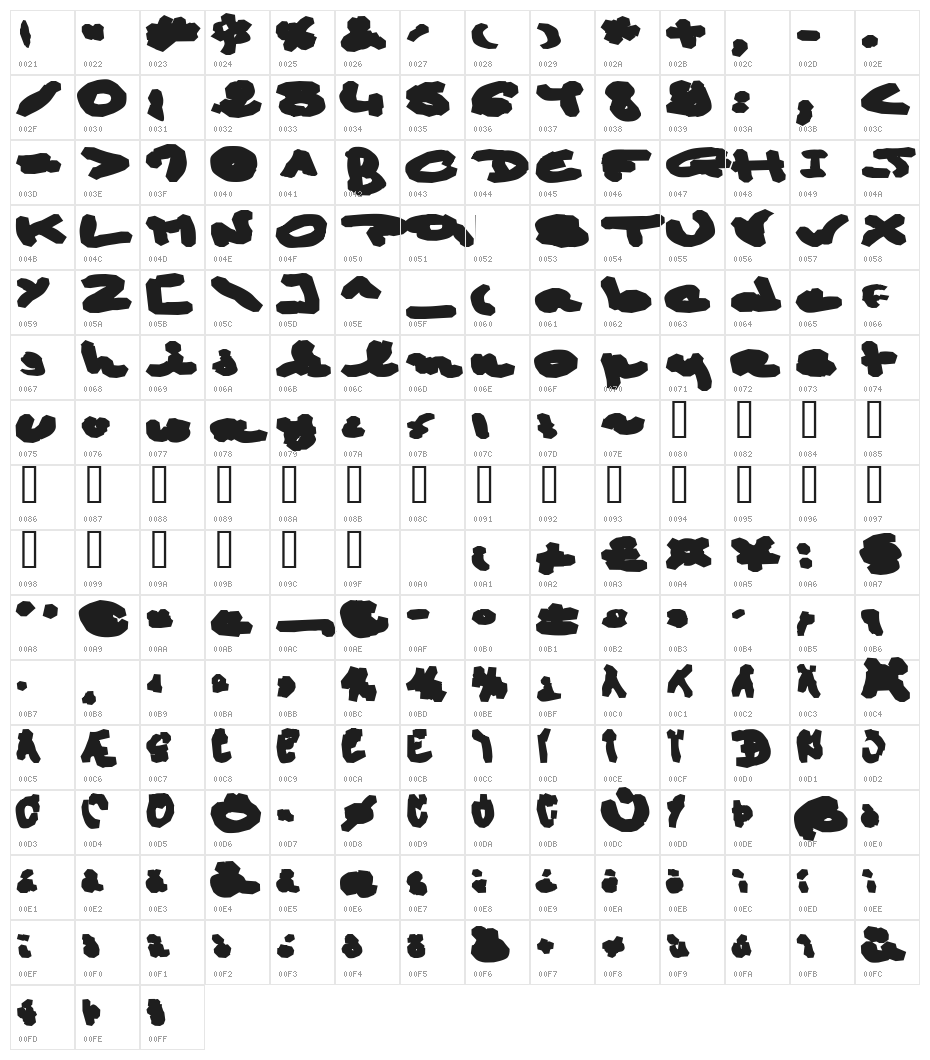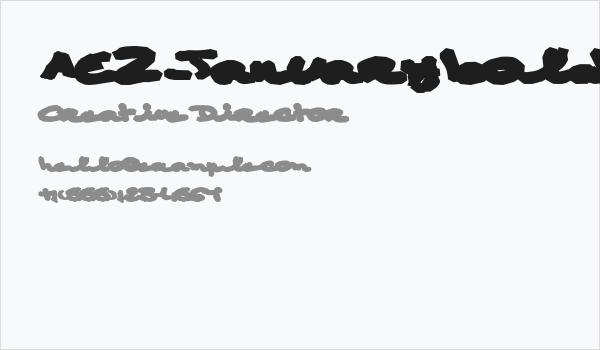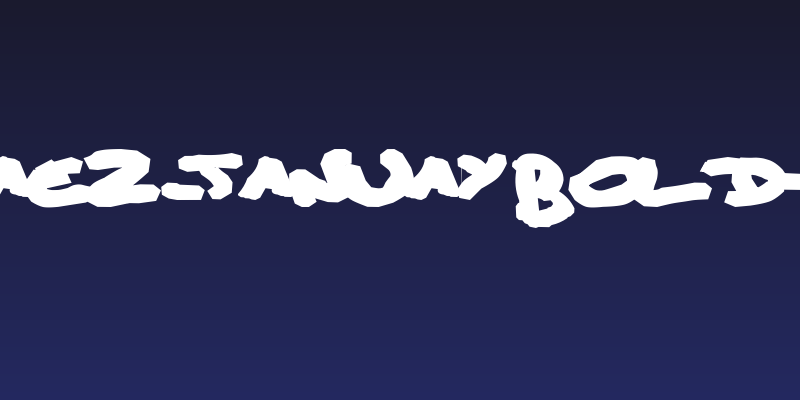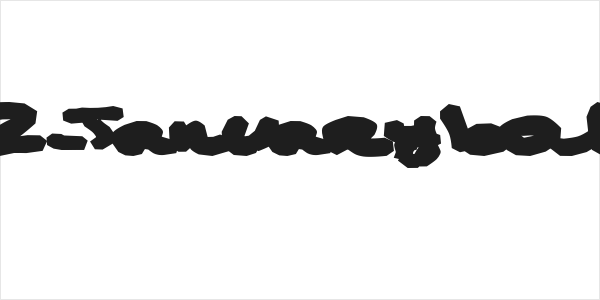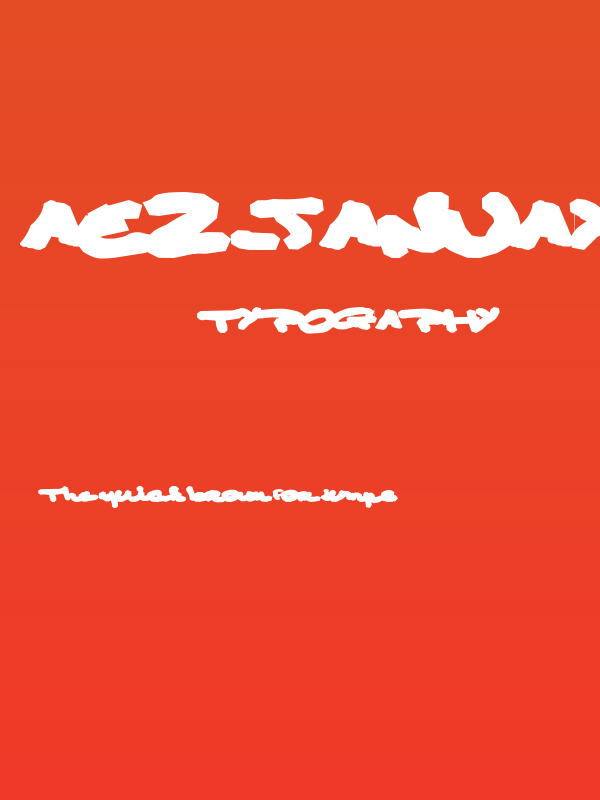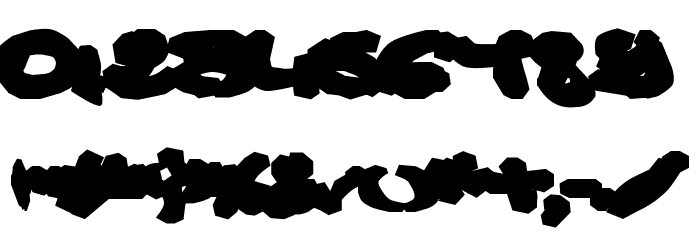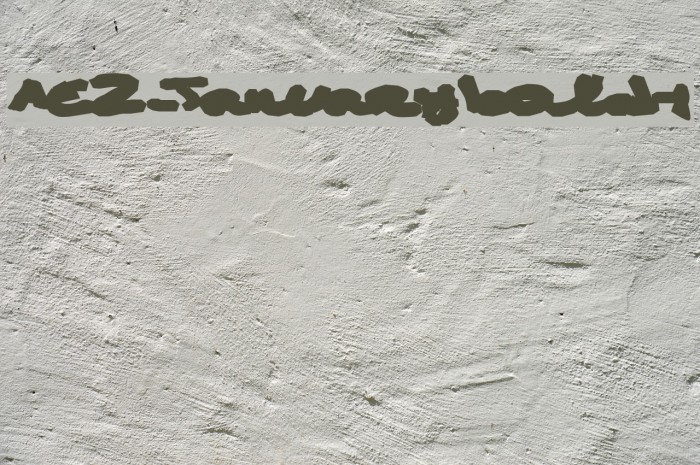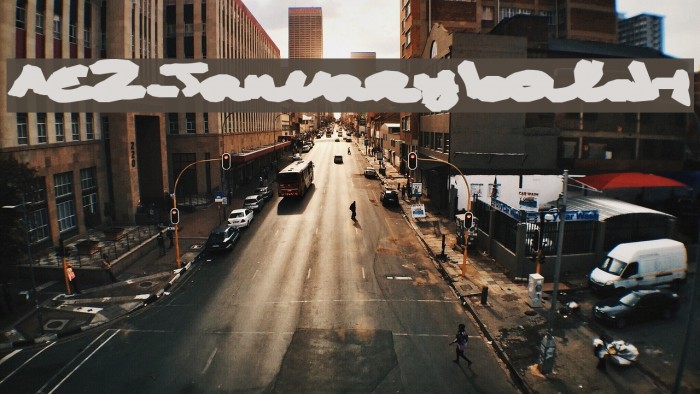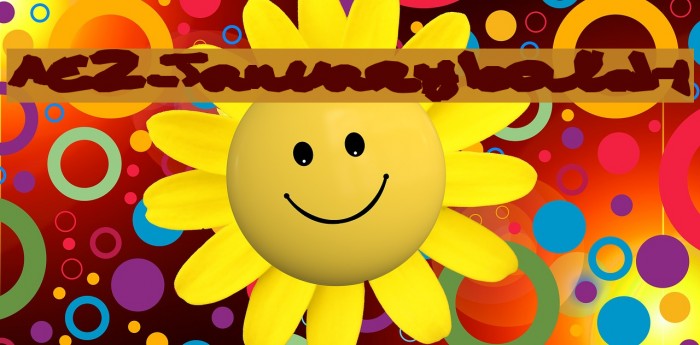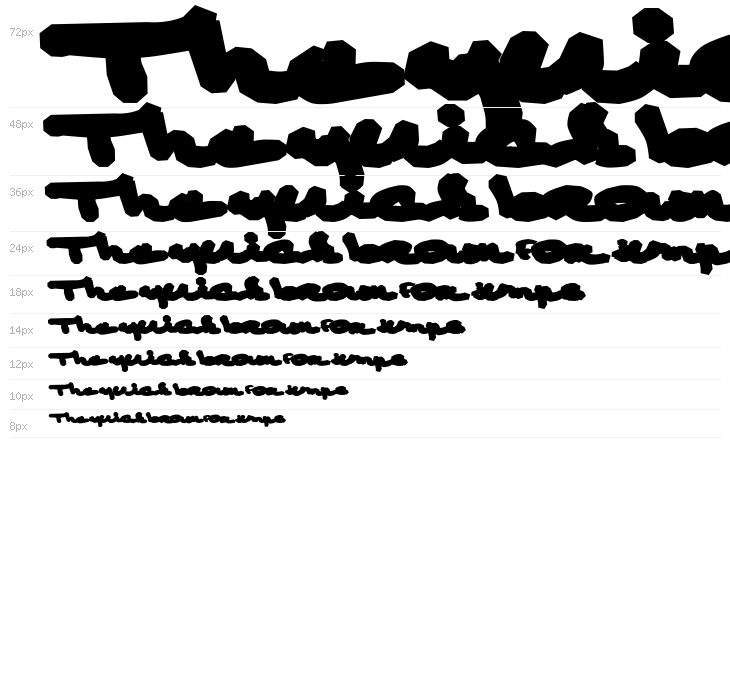
AEZ January bold-1 Font
This font exhibits a bold and expressive style, characterized by its thick, brush-like strokes that convey a sense of dynamism and energy. The letters are interconnected, creating a flowing and continuous script that resembles handwriting. The uppercase and lowercase letters maintain a consistent style, with rounded edges and a slightly irregular baseline that adds to its casual and artistic appearance. The numbers and special characters follow the same design principles, ensuring uniformity across all glyphs. This font is ideal for projects that require a personal touch or an artistic flair.
| Proposed Projects | Ideal for artistic projects, personal branding, creative posters, and invitations. |